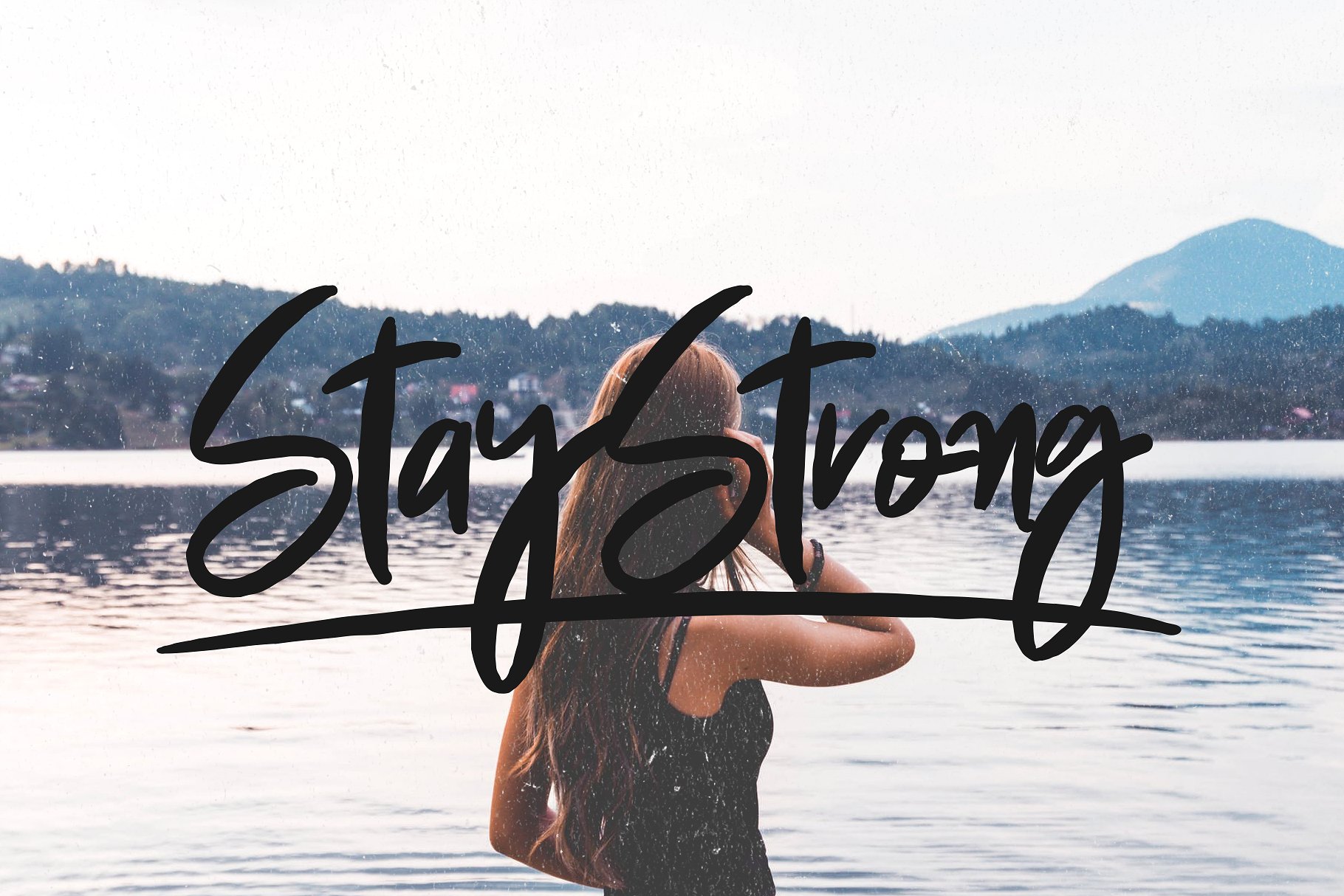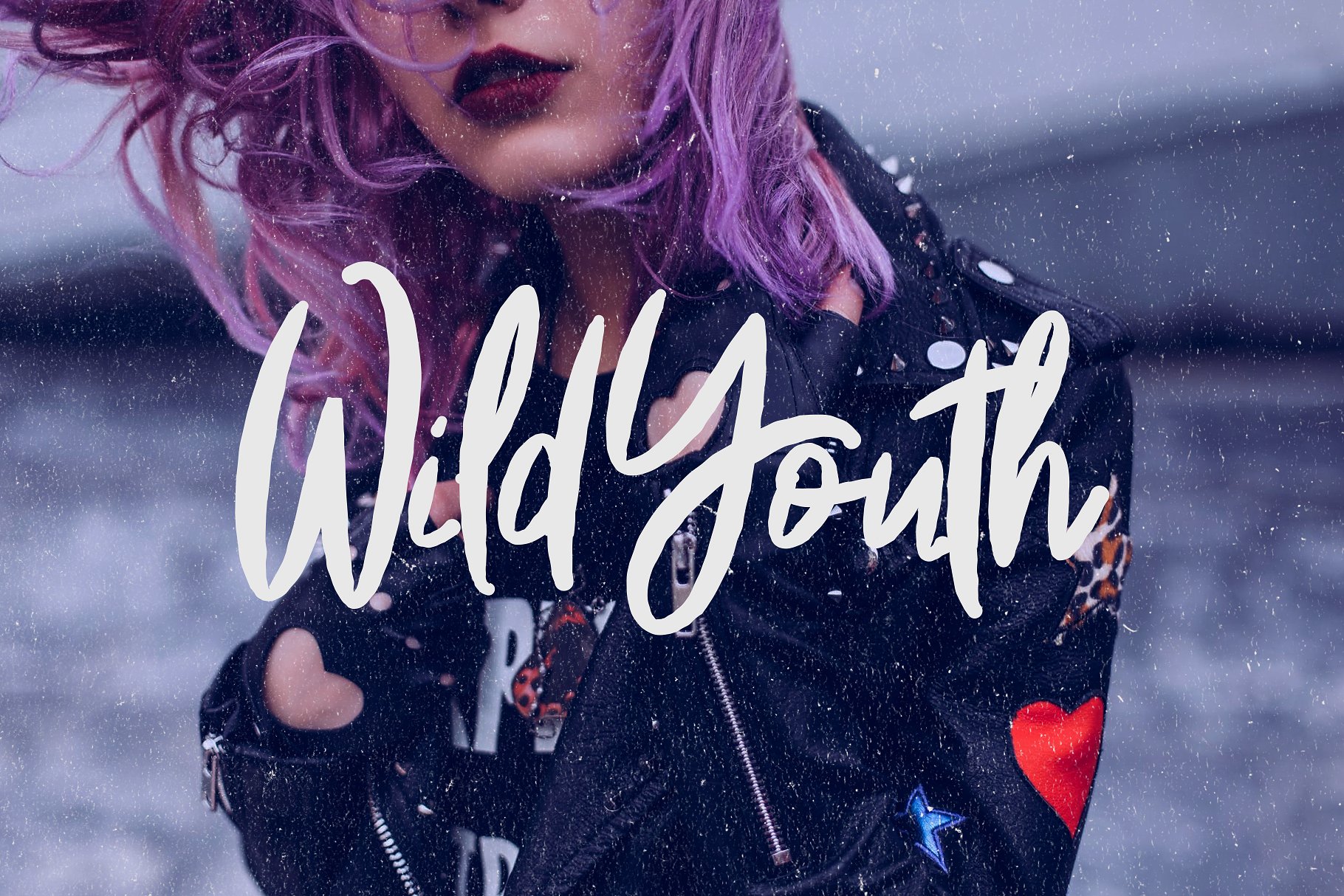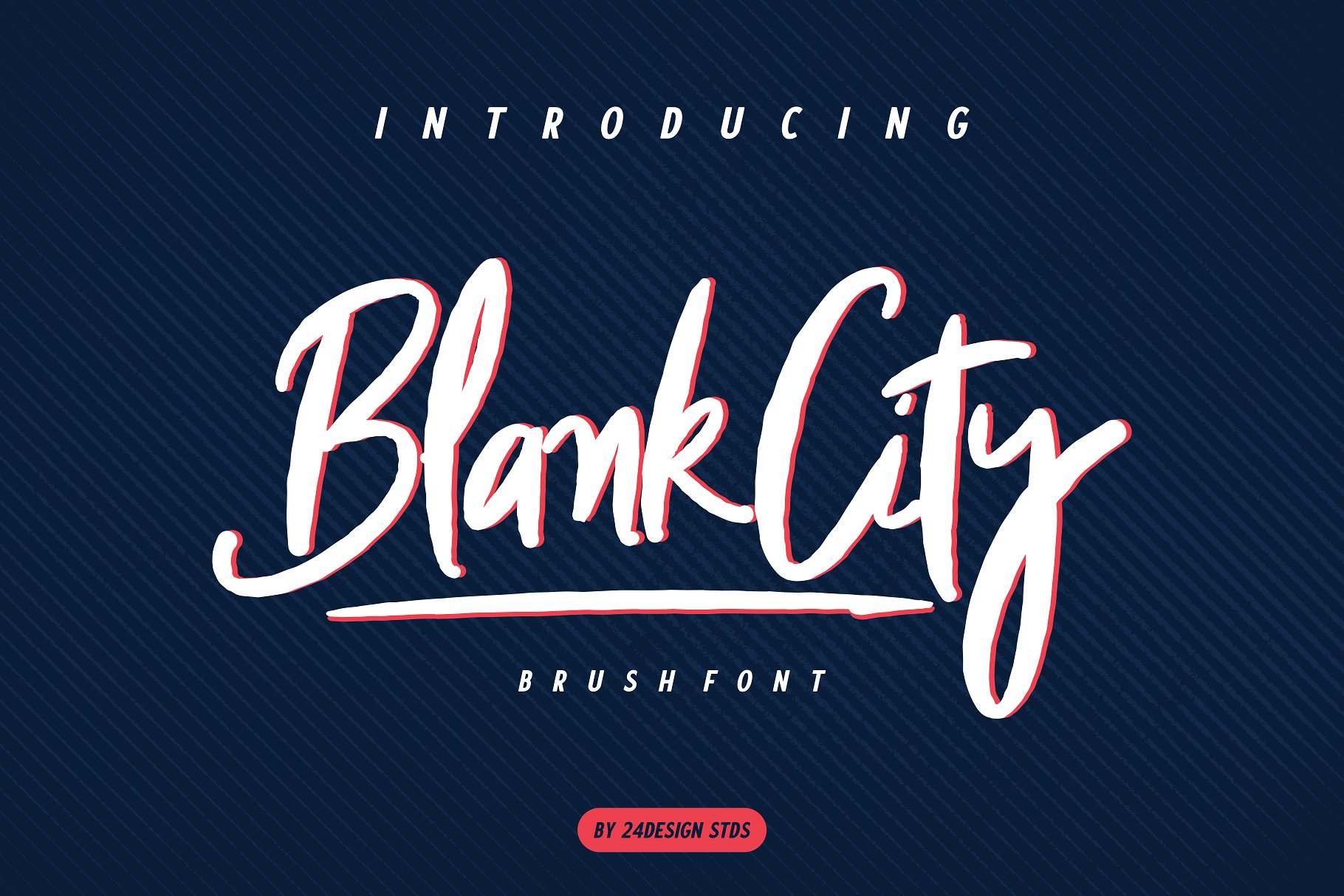
Blank City Brush Font
Blank City – is an modern brush script font created by 24Design Stds. Blank City is modern script rough font, every single letters have been carefully crafted to make your text looks beautiful. With modern script style this font will perfect for many different project ex: logo, photography, watermark, quotes, snapgram, blog header, poster, wedding, branding, logo, fashion, apparel, letter, invitation, stationery, etc.